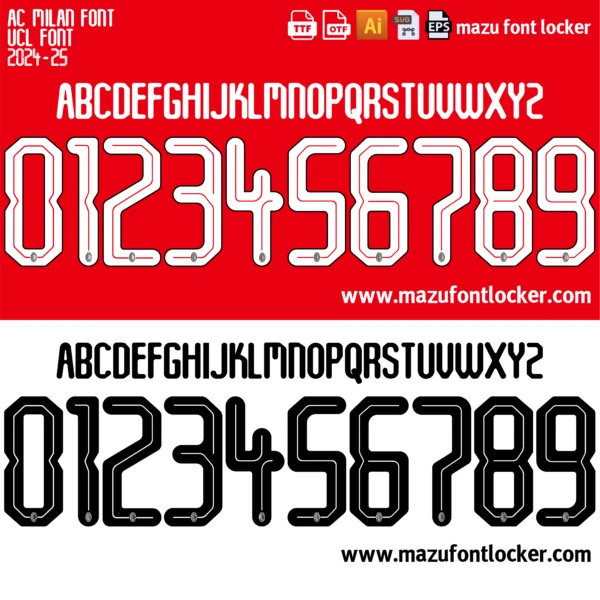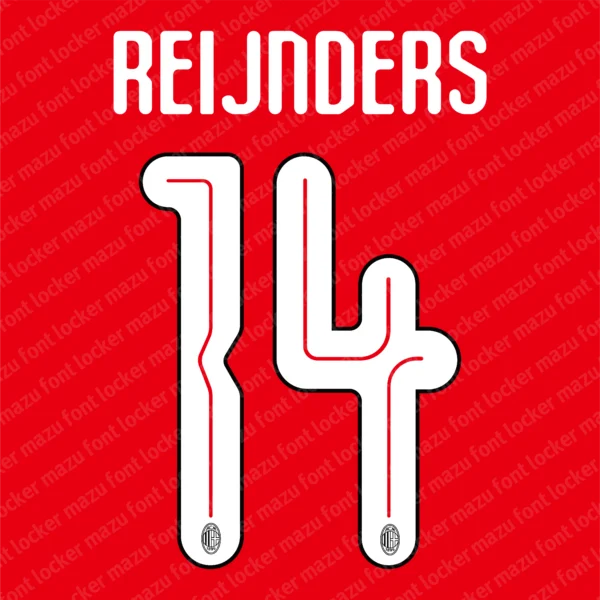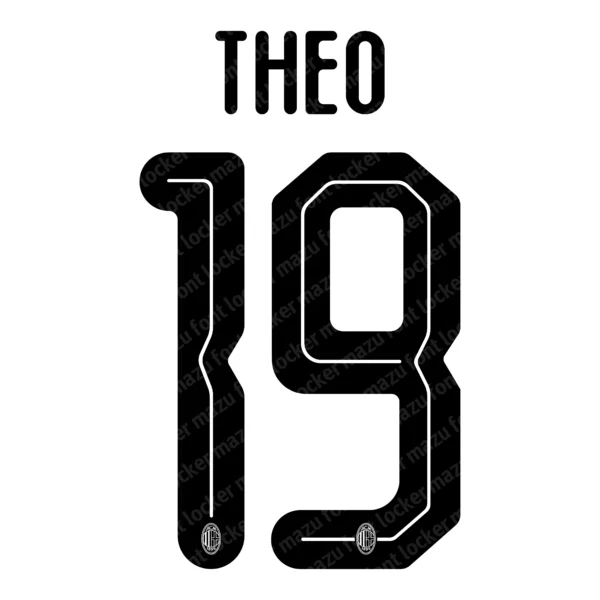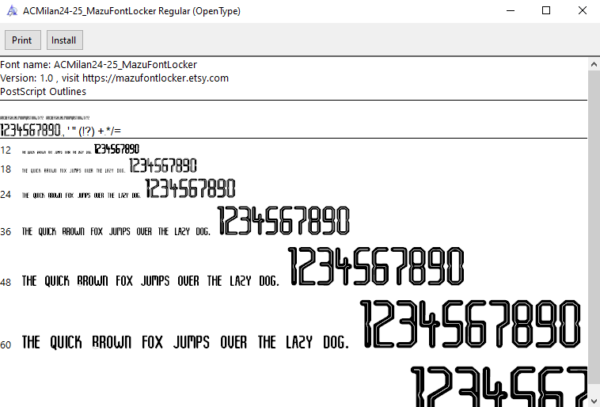
AC Milan 2024-2025 Font Vector – Spectacular Iconic Red & Black Edition
Download the AC Milan 2024-2025 Font Vector (AI, EPS, SVG, PDF, OTF, TTF) and unleash the bold, iconic, and commanding match typography from AC Milan’s legendary 2024-2025 season. This font captures the classic Rossoneri lettering that powered their explosive campaign.
Channeling the proud Rossoneri spirit of the modern era, it features the iconic style worn by stars like Maignan, Theo Hernández, Rafael Leão, and Christian Pulisic. Perfect for premium jersey mockups, football designs, and passionate AC Milan art.
AC Milan 2024-2025 Font Vector – Authentic Rossoneri Typeface
The AC Milan 2024-2025 Font Vector is a premium typeface that accurately recreates the official match lettering worn by AC Milan during the 2024-2025 season. This high-quality vector font kit captures the bold, modern, and elegant typography that represents the club’s Rossoneri identity in the current era.
Designed for professional designers and passionate AC Milan fans, the AC Milan 2024-2025 Font Vector delivers perfect authenticity for creating realistic jersey mockups, fan merchandise, matchday posters, social media graphics, and much more. It blends beautifully with the club’s iconic red and black kits.
Why Choose AC Milan 2024-2025 Font Vector
This font stands out because of its sharp vector details and strong identity. Every letter and number is crafted to match the exact style used on the players’ shirts during the 2024-2025 season. Whether you are making realistic kit templates or modern football content, the AC Milan 2024-2025 Font Vector gives your designs that authentic Rossoneri look.
The letterforms in the AC Milan 2024-2025 Font Vector are tall, bold, and highly readable. The strokes have a strong yet refined weight with clean edges that look powerful on the back of jerseys while maintaining excellent clarity and Italian elegance.
- Full uppercase A–Z and numbers 0–9 in authentic AC Milan 2024-2025 style
- Special AC Milan crest glyph for accurate shirt number detailing
- Includes the exact crest glyph placement used under player numbers
The AC Milan 2024-2025 Font Vector is an independently designed typeface package. It is carefully crafted to replicate the official shirt lettering style of the 2024-2025 season. This font kit is perfect for creative projects, fan edits, nostalgic jersey designs, and custom football graphics.